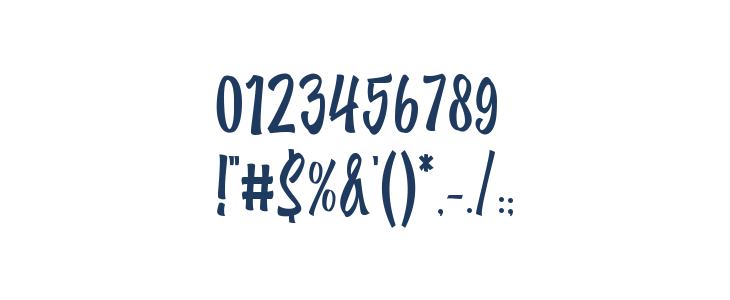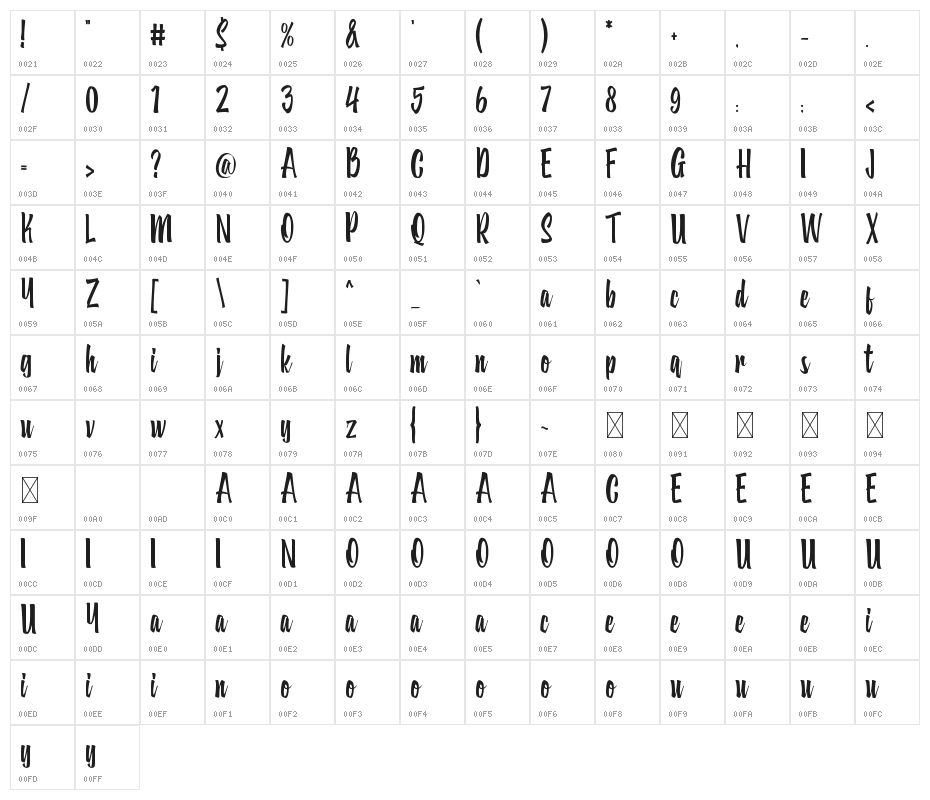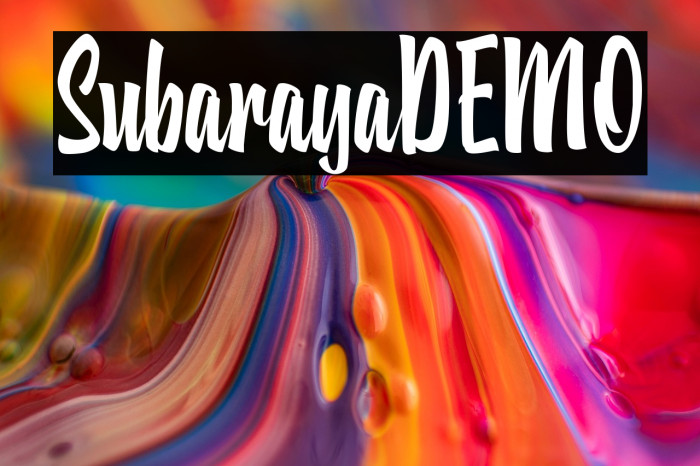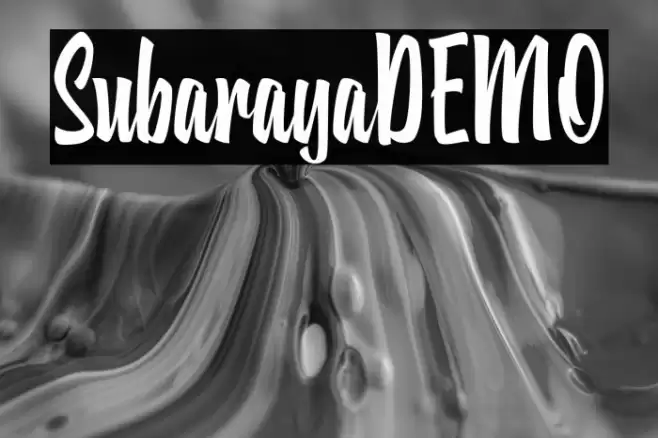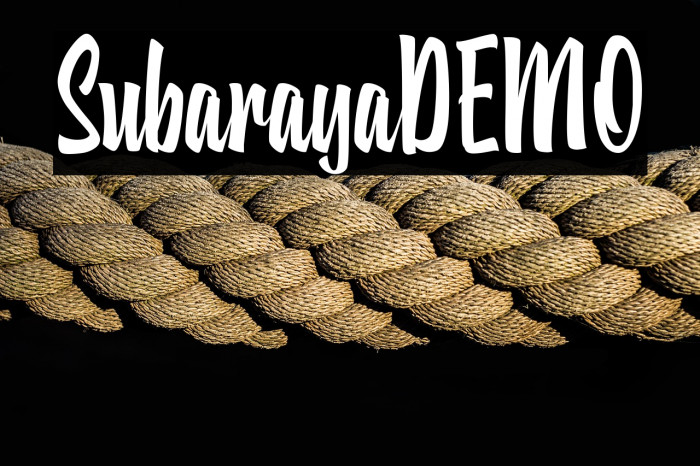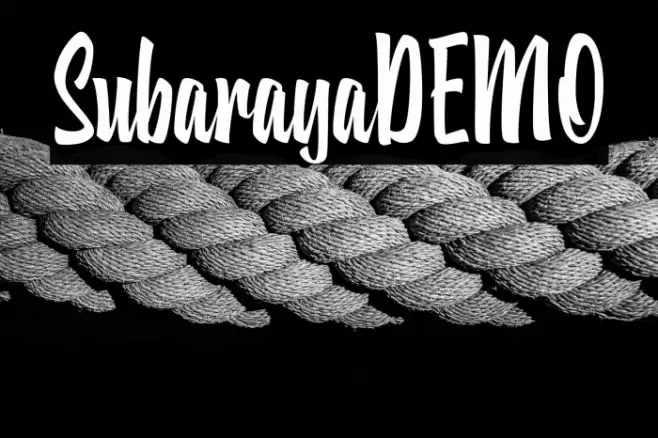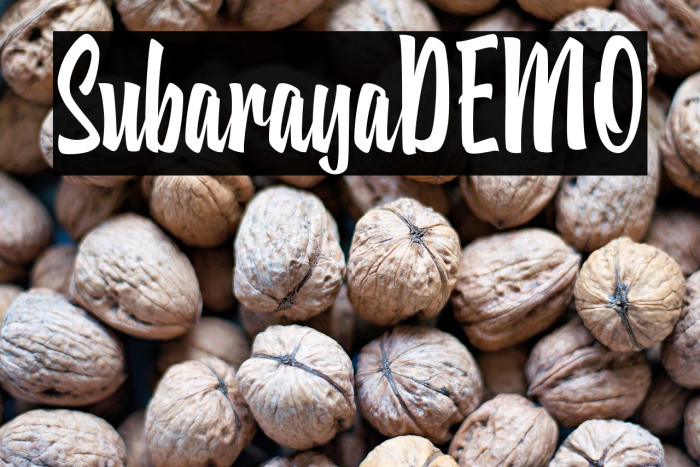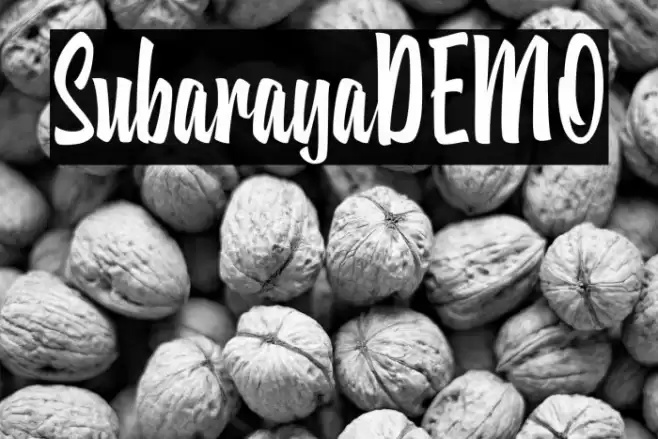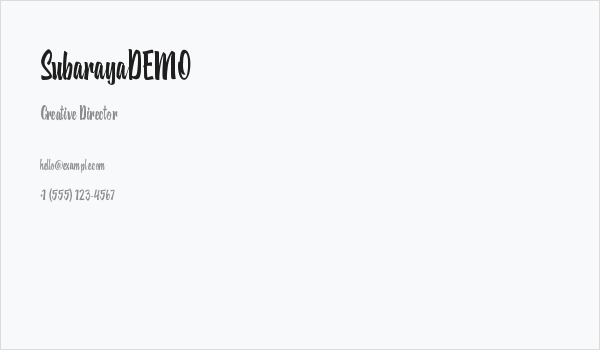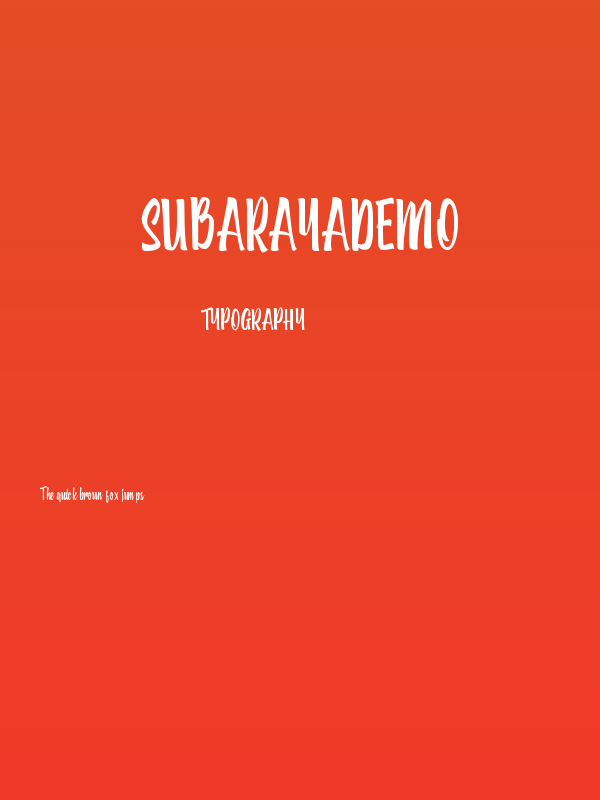
SubarayaDEMO Font
SubarayaDEMO Description
This font features a bold and expressive style with a handwritten appearance. The uppercase letters are tall and slightly condensed, giving a strong presence, while the lowercase letters maintain a fluid and dynamic look. The strokes are thick and consistent, adding to the boldness of the design. The numerals are clear and legible, matching the overall style of the alphabet. Special characters are included, maintaining the same bold and expressive characteristics. This font is ideal for projects that require a personal and lively touch, such as branding, posters, and creative designs.
| Proposed Projects | Ideal for branding, posters, creative designs, and any project needing a lively touch. |